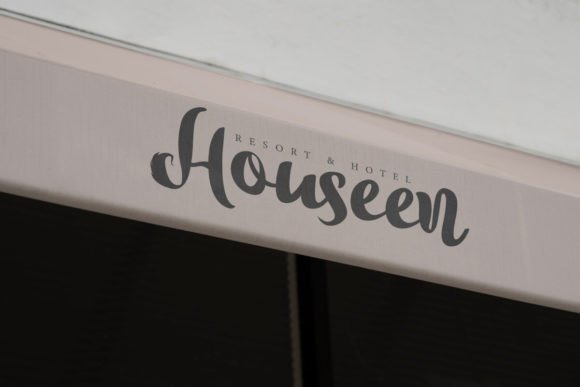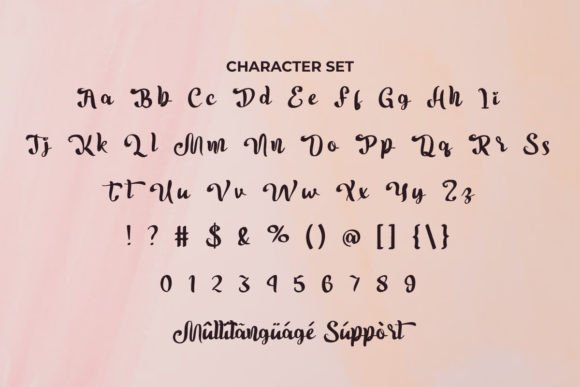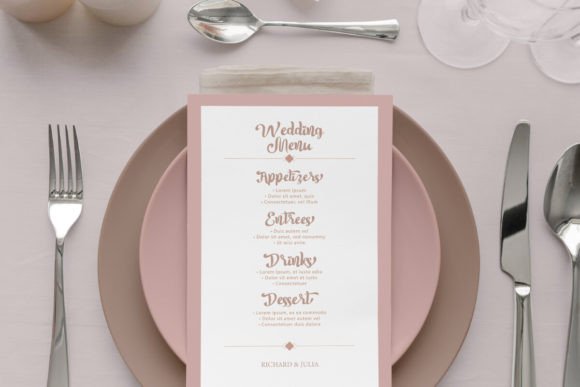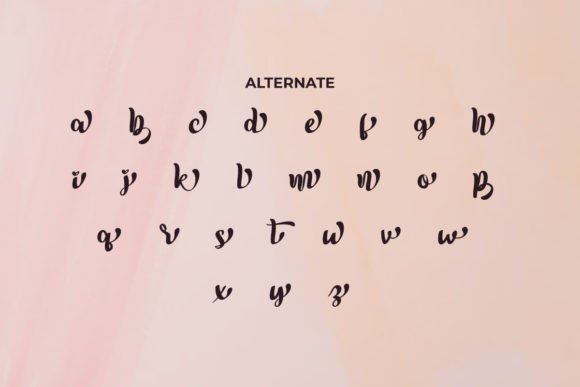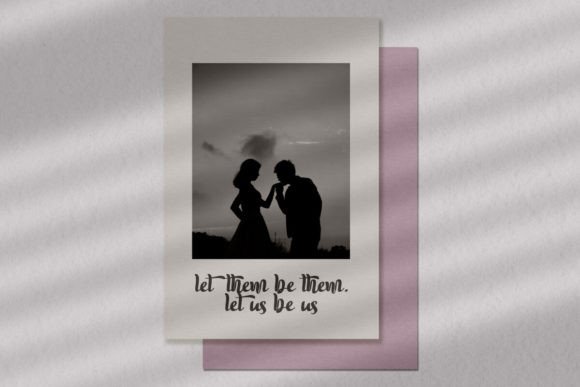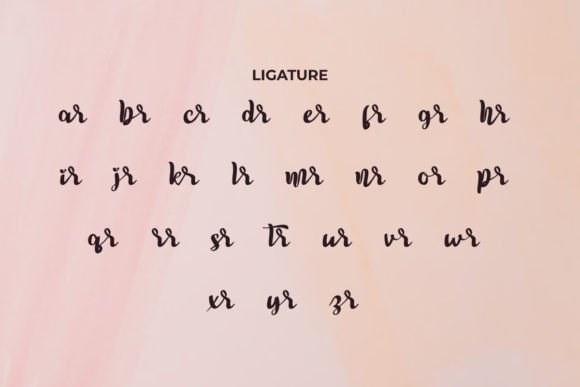
Introduction to Romantic Sky Font
Romantic Sky is a romantic calligraphy font with lovely unique shape exclusively made by NoahType.
This font has an exclusive unique look so you can feel a new experience in every design, such as frame art, invitations, labels, magazine catalog, menu, poster, product packaging, quotes, signage, stationery, title, website, and more .